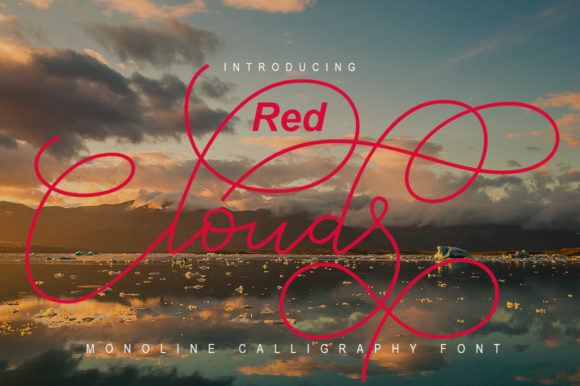
Red Clouds Font
Red Clouds is a thin lettered and delicate script font that exudes elegance and class. This font was particularly crafted for those who need a beautiful and refreshing look to their designs. Red Clouds is PUA encoded which means you can access all glyphs and swashes with ease!